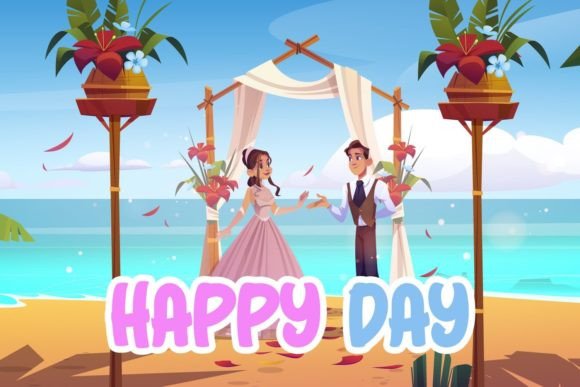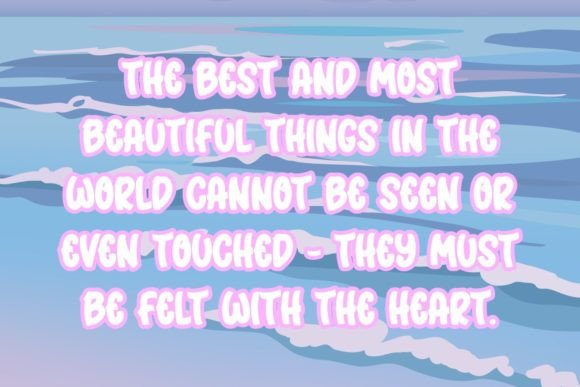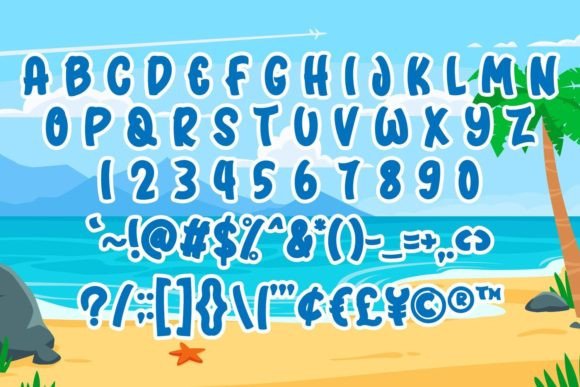
Introduction to Paradise Beach Font
Remember the feeling of excitement when you stumble upon the perfect design element for your creative project? It’s like finding a hidden treasure that makes your work shine. That’s exactly what happened to me when I discovered the Paradise Beach Font – a delightful, retro display font that adds a touch of whimsy to any design.
As a designer, you’re constantly on the lookout for high-quality design resources that can elevate your work. The Paradise Beach Font is one such gem, perfect for greeting cards, headlines, and more. With its transparent background, you can easily incorporate it into your designs without any hassle. And the best part? It’s available for free download, making it an invaluable addition to your design arsenal.
Key Features of Paradise Beach Font
- High-quality design resource ideal for creative projects, including beach-themed posters, flyers, and more.
- Unique, hand-drawn design elements with a transparent background, allowing for easy customization and layering in your design project.
- Includes a wide range of characters, including uppercase and lowercase letters, numbers, and punctuation marks, making it a versatile design resource.
Honest Review: Paradise Beach Font
As a designer, I’m always on the lookout for high-quality fonts to enhance my creative projects. The Paradise Beach Font caught my attention, and I was eager to see how it would perform in my next design.
What works well about this font is its versatility and playfulness. The font comes in a range of styles, from casual to elegant, making it suitable for a variety of design applications. The free download option is also a major plus, as it allows designers to experiment with the font without committing to a purchase.
Here are some of the key features I liked about the Paradise Beach Font:
- Transparent background, making it easy to use in various design contexts
- Range of styles to suit different design needs
- Some users may find the font too playful or casual for more formal projects
- The font may not be suitable for complex or highly detailed designs
Overall, I was impressed with the Paradise Beach Font. While it may have some limitations, its versatility and high-quality design make it a valuable addition to any designer’s toolkit.
To get the most out of Paradise Beach Font, experiment with different font sizes and styles to create unique and eye-catching designs. You can also use it in combination with other design elements to add depth and visual interest to your project.
The Paradise Beach Font is perfect for a variety of creative projects, including social media graphics, presentations, and documents. Its high-quality design and transparent background make it a valuable resource for designers and non-designers alike.